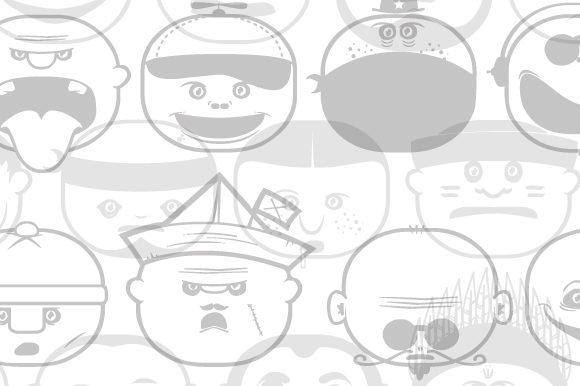
Unleash Your Creativity with Bad Boy Font: The Ultimate Dingbats Font for DIY Enthusiasts
Are you a designer, crafter, or DIY enthusiast looking for a unique and playful way to add some personality to your projects? Look no further than the Bad Boy Font, an amazing dingbats font that’s sure to bring a smile to your face. In this article, we’ll dive into the world of Bad Boy Font and explore how these funny and unique dingbats can elevate your DIY projects to the next level.
What is Bad Boy Font?
Bad Boy Font is a dingbats font that features a collection of quirky and humorous illustrations, perfect for adding a touch of whimsy to your designs. The font includes a wide range of characters, from playful icons to fun and silly graphics, making it an ideal choice for crafters, designers, and DIY enthusiasts.
The Benefits of Using Bad Boy Font
So, why choose Bad Boy Font for your DIY projects? Here are just a few benefits of using this amazing dingbats font:
- Unique and Playful Designs: Bad Boy Font features a one-of-a-kind collection of illustrations that are sure to make your projects stand out from the crowd.
- Versatile: Bad Boy Font can be used for a wide range of DIY projects, from crafting and scrapbooking to graphic design and digital art.
- Fun and Engaging: The playful illustrations in Bad Boy Font are sure to add a touch of humor and personality to your projects.
Creative Ways to Use Bad Boy Font
So, how can you use Bad Boy Font to bring your DIY projects to life? Here are a few creative ideas to get you started:
- Custom Crafts: Use Bad Boy Font to add fun and playful illustrations to your handmade crafts, such as knitted items, jewelry, and home decor.
- Scrapbooking: Add a touch of whimsy to your scrapbook pages with the unique illustrations in Bad Boy Font.
- Graphic Design: Use Bad Boy Font to create eye-catching graphics, such as logos, icons, and social media graphics.
- Digital Art: Incorporate the playful illustrations in Bad Boy Font into your digital art projects, such as illustrations, animations, and GIFs.
Tips for Getting the Most Out of Bad Boy Font
To get the most out of Bad Boy Font, here are a few tips to keep in mind:
- Experiment with Different Sizes and Colors: Play around with different sizes and colors to find the perfect combination for your project.
- Combine with Other Fonts: Pair Bad Boy Font with other fonts to create a unique and eye-catching design.
- Use for Emphasis: Use the illustrations in Bad Boy Font to draw attention to specific elements in your design.
In conclusion, Bad Boy Font is an amazing dingbats font that’s perfect for designers, crafters, and DIY enthusiasts looking to add a touch of whimsy to their projects. With its unique and playful illustrations, ease of use, and versatility, Bad Boy Font is sure to become a go-to font in your design arsenal. So why wait? Download Bad Boy Font today and start bringing your DIY projects to life with these funny and unique dingbats!
The bad boy is an amazing dingbats font. Use these funny and unique dingbats to bring any DIY project to life!